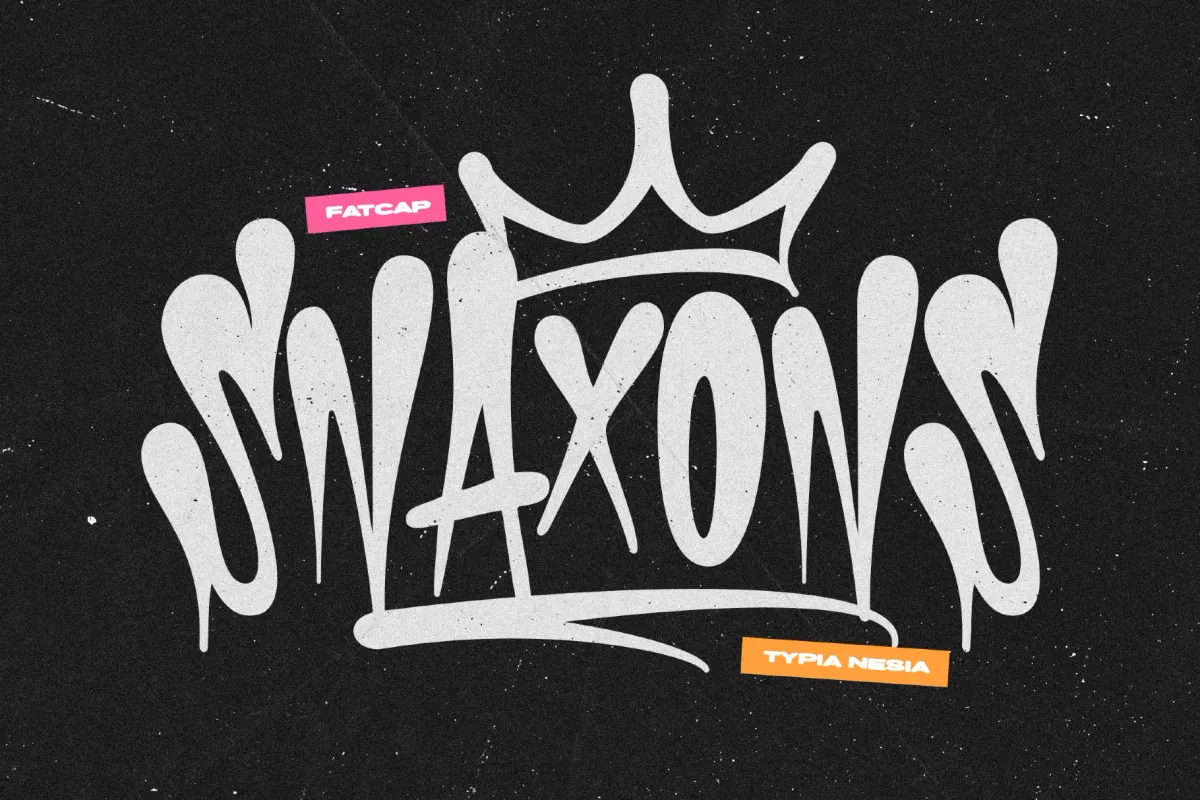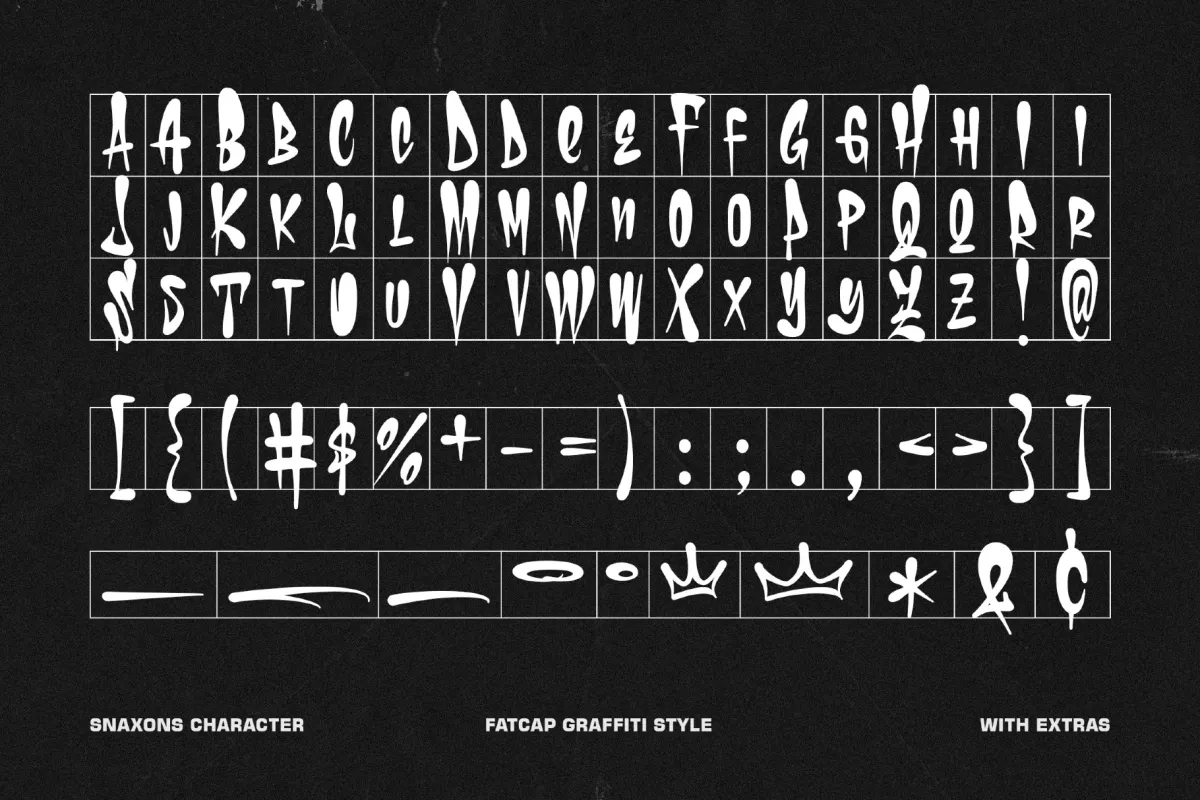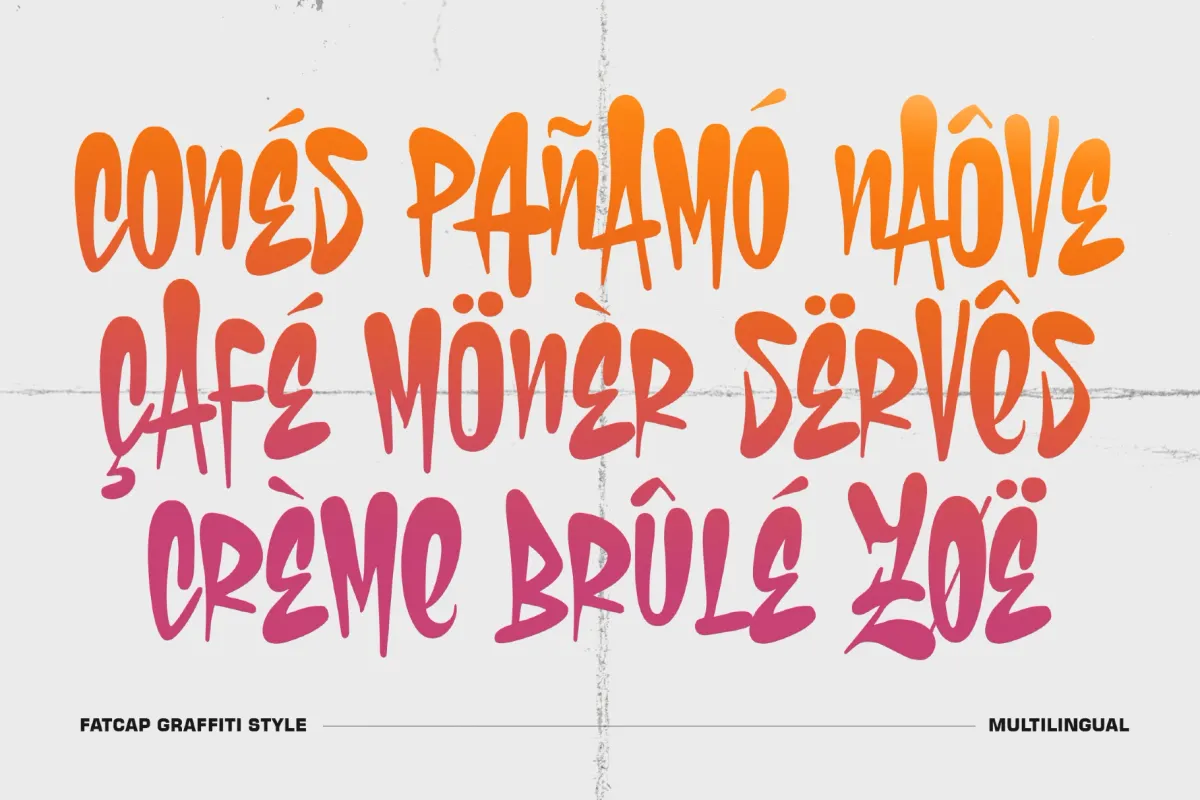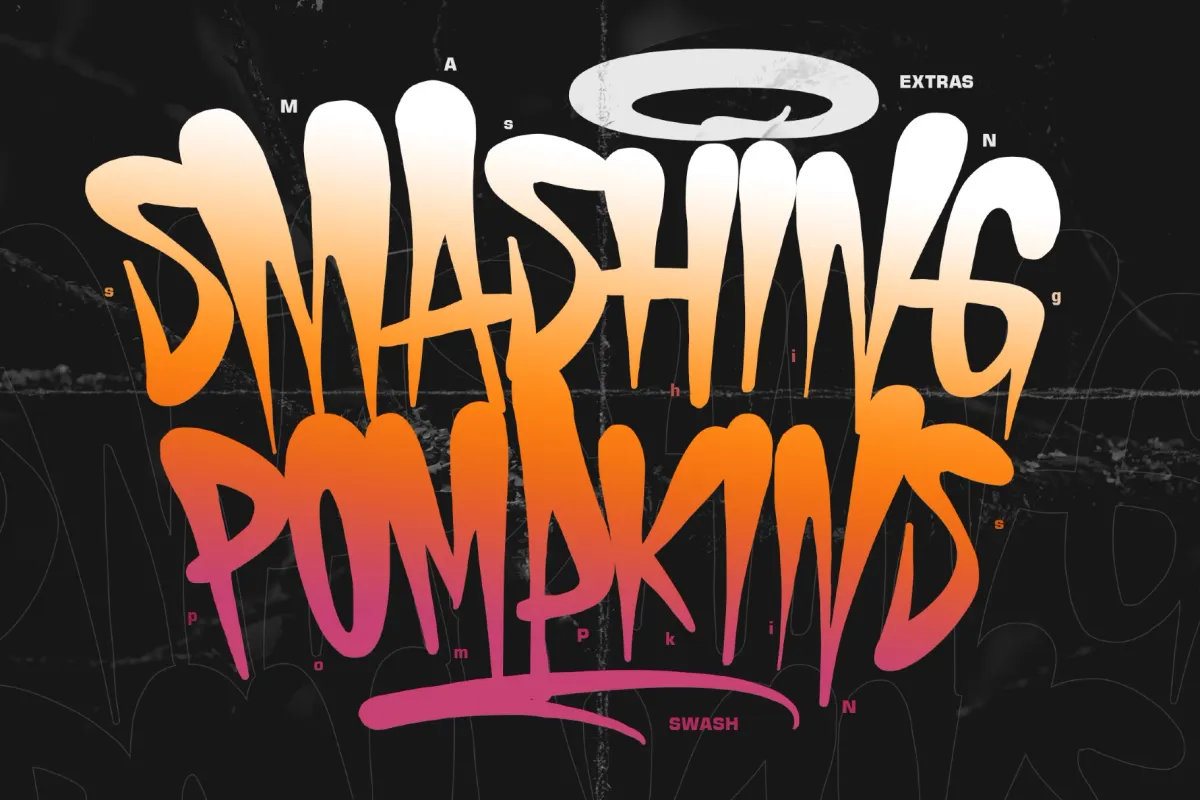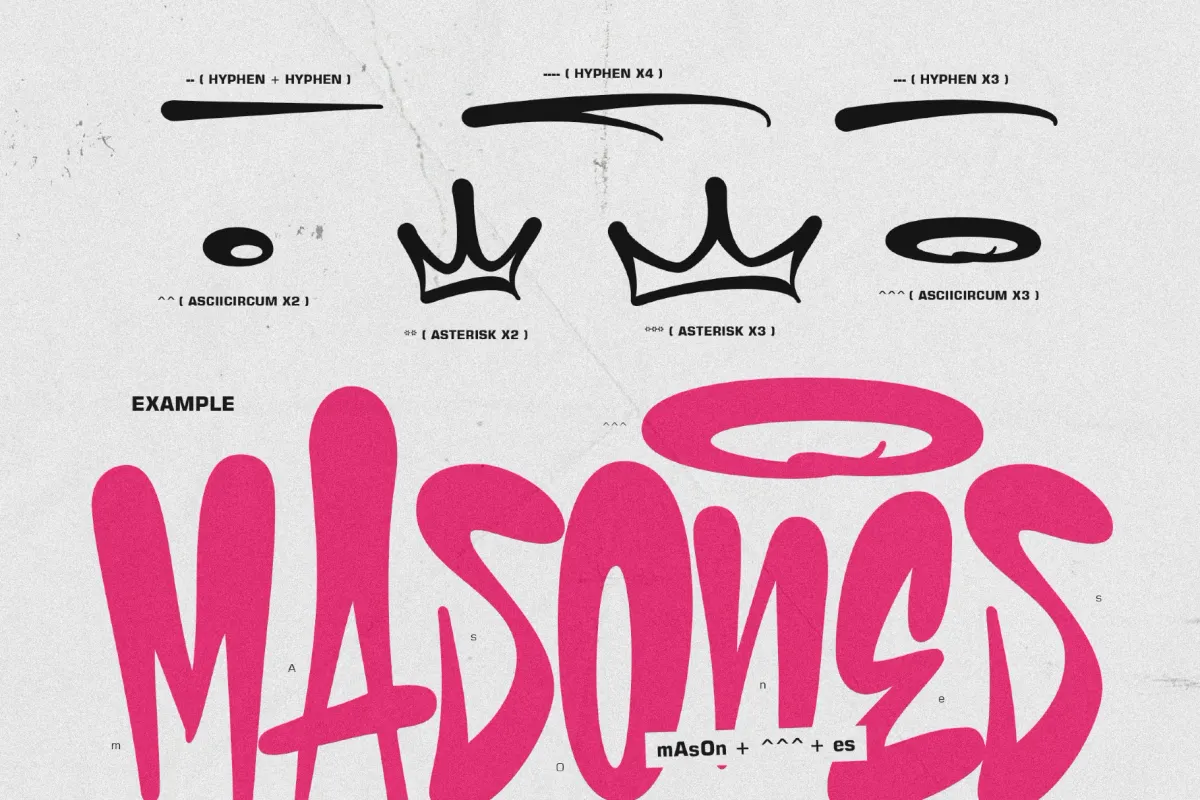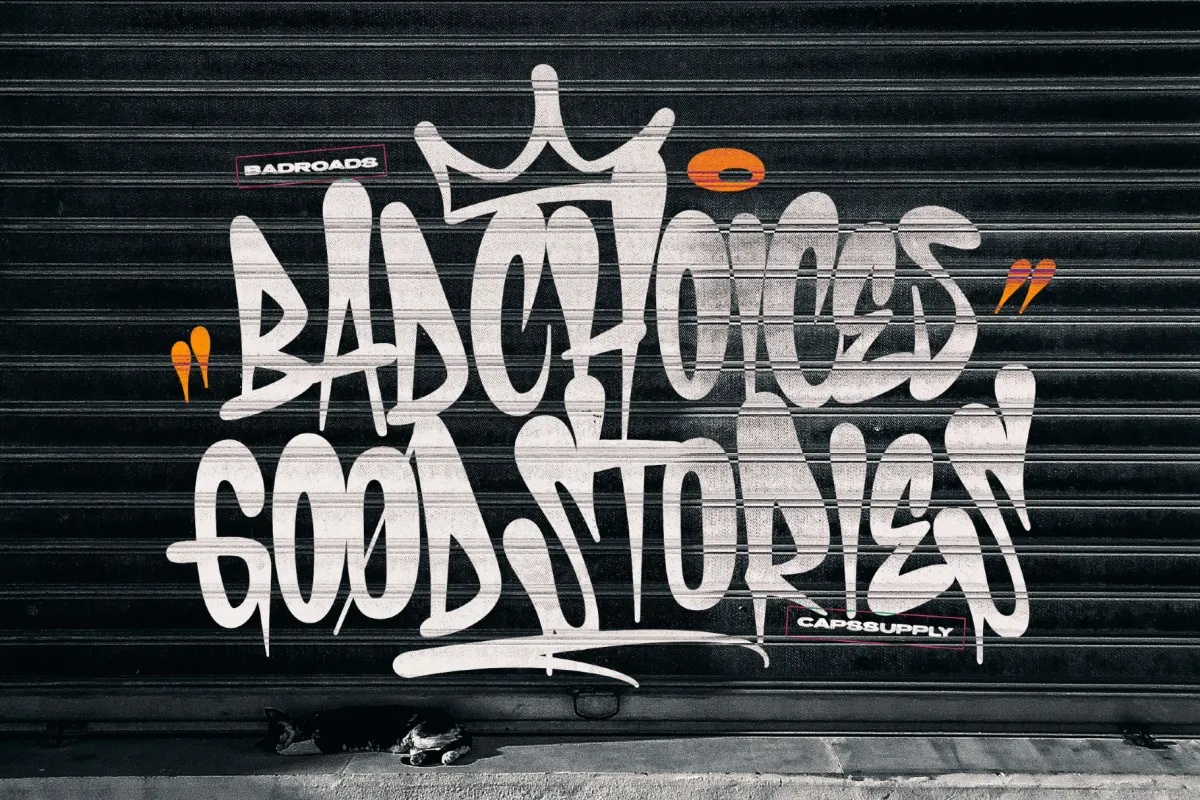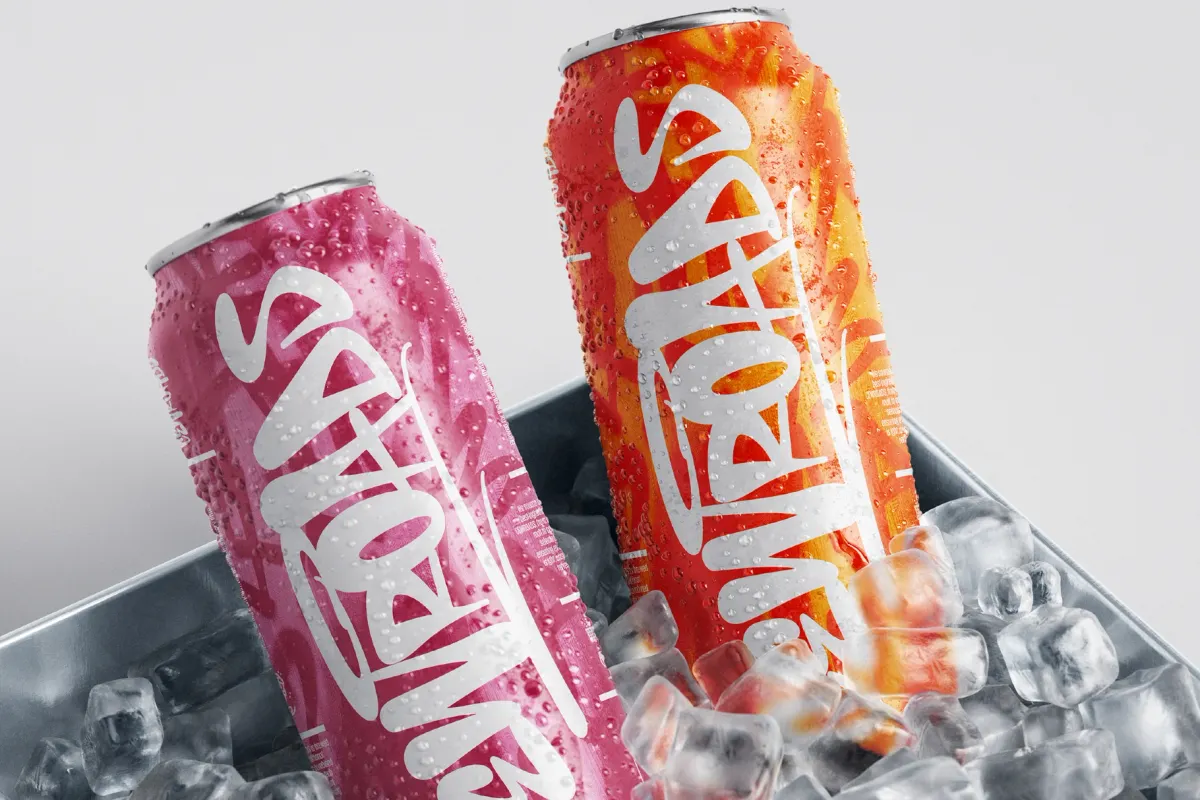
Snaxons - Fat Cap Graffiti Font
Snaxons piles on oversized rounded strokes and dripping terminals for a fat cap graffiti look straight off a spray can. Extra ligatures turn repeated hyphens, asterisks, and carets into drawn underlines, crowns, and halos, so a tag gets its finishing touches without leaving the text field.
Use it for streetwear branding, graffiti-style logos, hip-hop album covers, esports graphics, event posters, skateboard graphics, stickers, merchandise, and social media headlines.
• 1 style: Regular;
• uppercase & lowercase;
• numerals, punctuation & symbols;
• ligatures for decorative underlines, crowns & halos;
• multilingual support;
• 198 glyphs